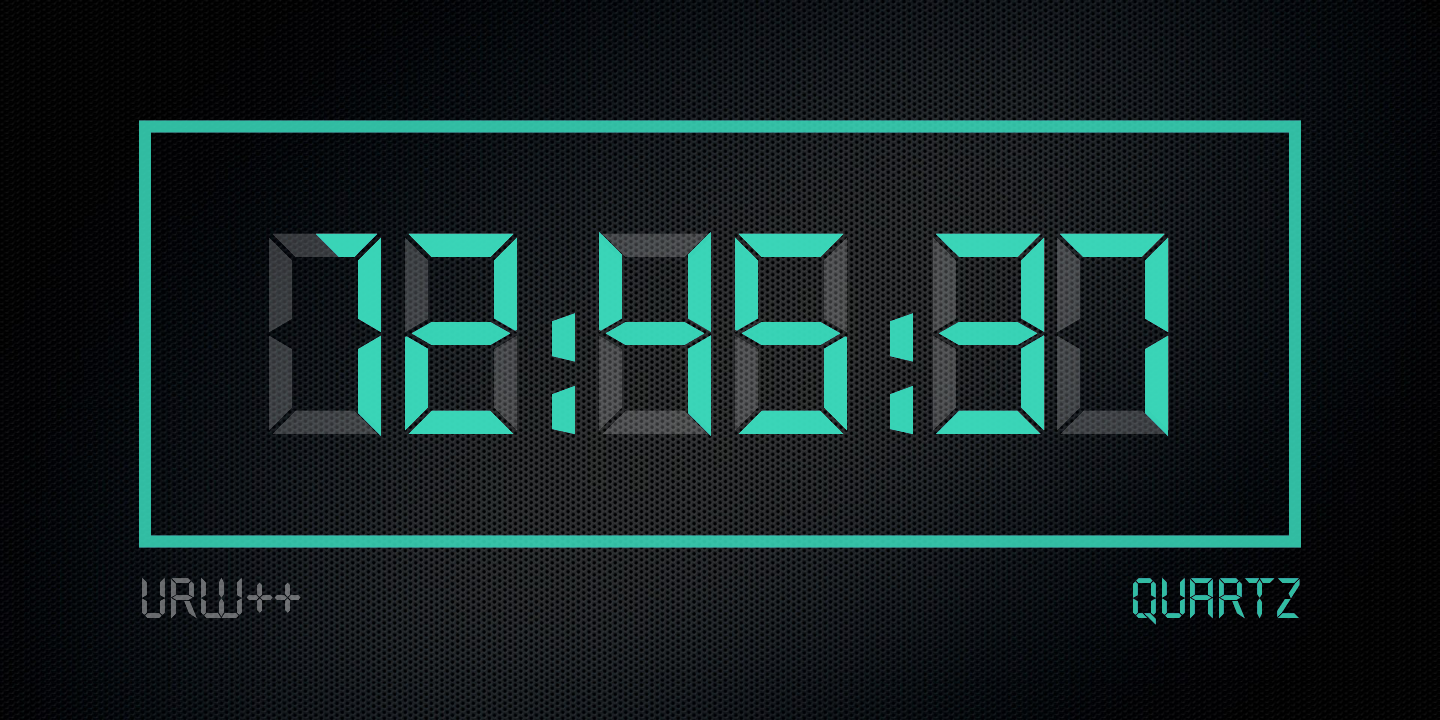
Quartz Font is perfect for luxury jewelry branding, premium crystal products, elegant mineral collections, sophisticated gemstone marketing, high-end watch displays, crystalline spa treatments, refined geological publications, precious stone certifications, luxury mineral water branding, and crystallography educational materials.
What makes Quartz Font so exciting is its crystalline precision that embodies the pure beauty and geometric perfection found in natural crystal formations. This typeface features sharp, angular letterforms with faceted construction and brilliant clarity that evokes the sparkling radiance of cut gemstones and crystal structures. The font's luminous and refined character communicates purity and exceptional quality, making it perfect for luxury brands seeking to establish premium positioning through the timeless appeal of crystalline elegance and natural perfection.
Quartz Font family includes Regular, Bold, Light, and Faceted weights, along with crystalline alternates and geometric variations. The family also features special character sets including gemstone symbols, crystallographic elements, and mineral decorative components that enhance the font's connection to precious stones and crystal formation themes.
The Quartz Font Free Download package offers designers access to premium crystalline typography that brings mineral elegance to any luxury project. This brilliant typeface combines geometric precision with natural beauty principles, creating a powerful visual tool for premium brands and luxury-focused organizations. Whether you're developing high-end jewelry identities, designing luxury product packaging, or creating premium marketing materials, this font provides the crystalline character needed to communicate exceptional quality and natural perfection.
Quartz Font supports comprehensive character sets including Latin alphabets, numbers, punctuation marks, and special crystalline symbols. The font's precisely faceted spacing creates brilliant visual clarity while ensuring excellent readability across all luxury applications. Its OpenType features include contextual alternates, crystalline ligatures, and geometric decorative elements that expand creative possibilities for premium design projects.
Professional designers choose Quartz Font for projects requiring authentic luxury appeal and crystalline precision aesthetics. The font excels in applications where premium quality and natural elegance are essential, offering the perfect solution for brands seeking to communicate exclusivity, purity, and connection to natural beauty. Its crystal-inspired character makes it ideal for jewelry companies, luxury spas, and premium lifestyle brands.
The Quartz Font Free Download provides creative professionals with an exceptional opportunity to explore crystalline typography. With its brilliant character variations, mineral-inspired design elements, and premium quality, this font represents outstanding value for designers, luxury organizations, and creative agencies specializing in high-end visual communications that celebrate the geometric beauty of crystals and the sparkling elegance of natural mineral formations and precious stone artistry.